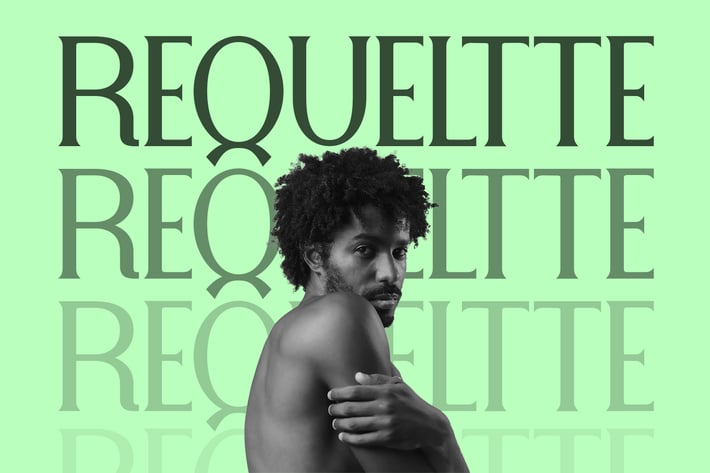
Requeltte Display Typeface
Requeltte is a sophisticated serif typeface designed for modern branding and high-impact visuals. With its carefully crafted curves and sharp contrasts, Requeltte strikes the perfect balance between timeless elegance and contemporary flair. Available in two versatile weights, this font adapts seamlessly across various applications, making it ideal for magazine covers, posters, and other branding materials. Its refined structure and legibility ensure that it makes a bold statement in both large and small sizes, offering a premium look to any design project. Whether for luxury brands or editorial layouts, Requeltte elevates any creative concept with its stylish yet professional appeal.